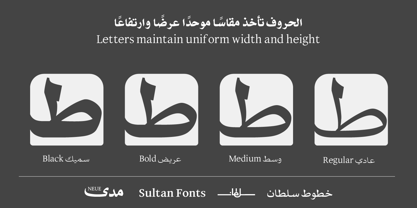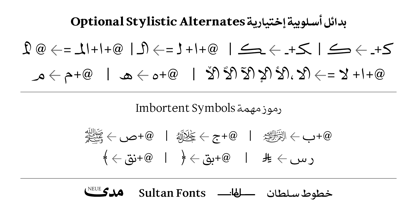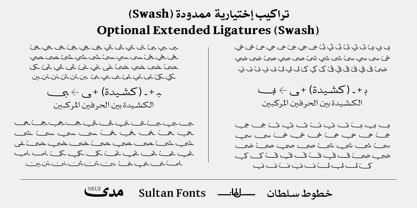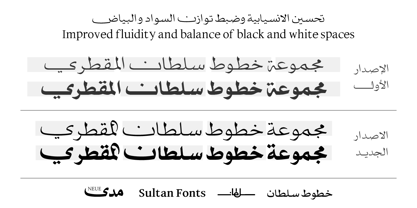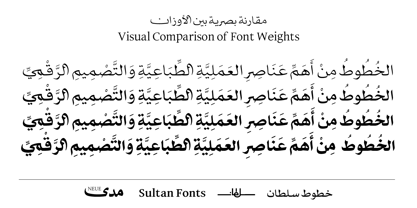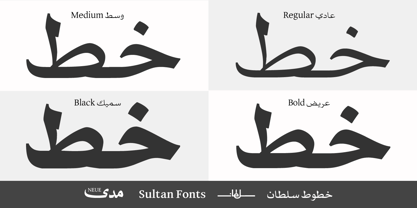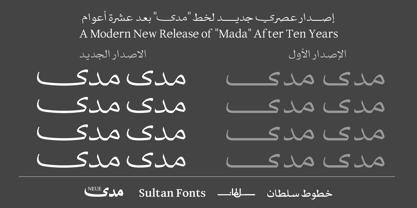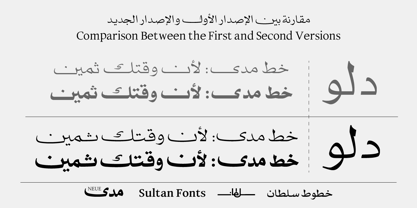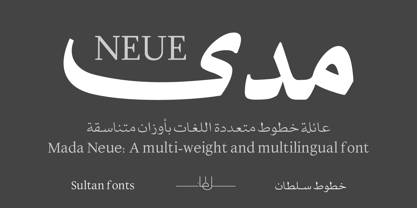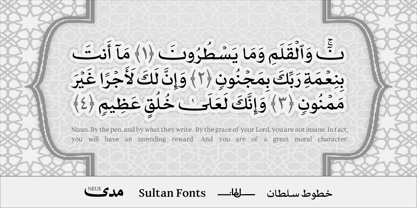
SF Mada Neue
by Sultan Fonts
The SF Mada Neue Font Family was designed by Sultan Maqtari and published by Sultan Fonts. SF Mada Neue contains 4 styles and family package options. More about this family
Mada Neue is a modern, multilingual typeface and a fully redesigned evolution of the classic Mada font. Engineered with a focus on fluid curves and an optimized balance of black and white spaces, it delivers enhanced elegance and readability. The font family includes four precisely coordinated weights where letters maintain uniform height and dimensions across the entire family. Packed with advanced OpenType features, it offers dynamic stylistic alternates, optional extended letters (Swash), and automatic kashida stretching. Providing comprehensive multi-script support for Arabic, Latin, Persian, Urdu, and Kurdish, Mada Neue is the ultimate choice for branding, publication design, and premium digital layouts.
Designers: Sultan Maqtari
Foundry: Sultan Fonts